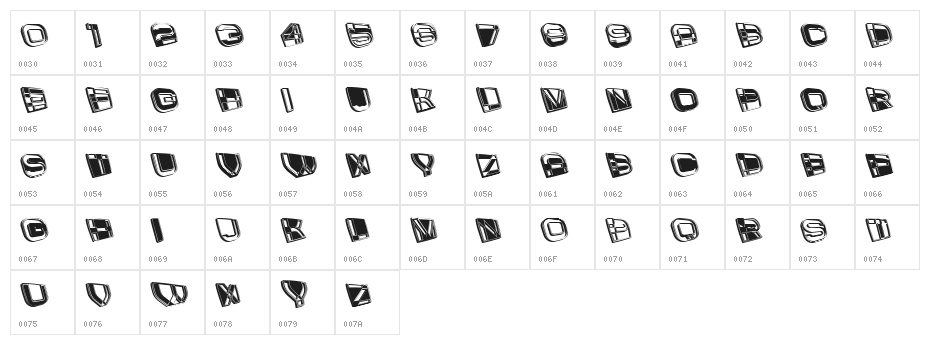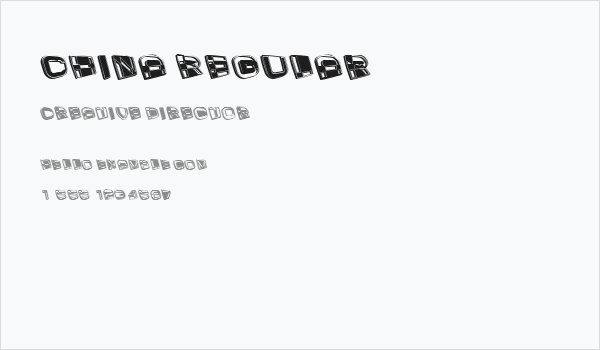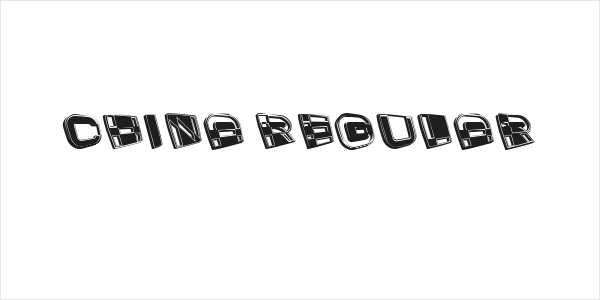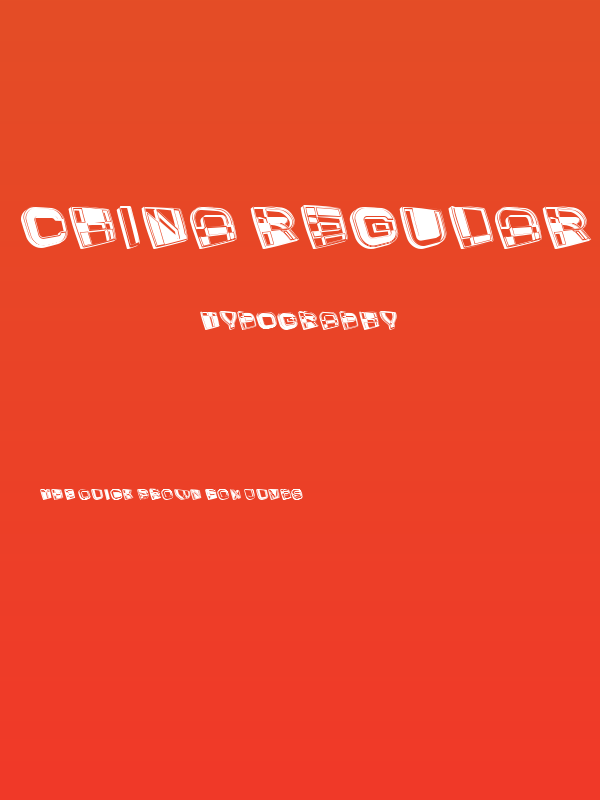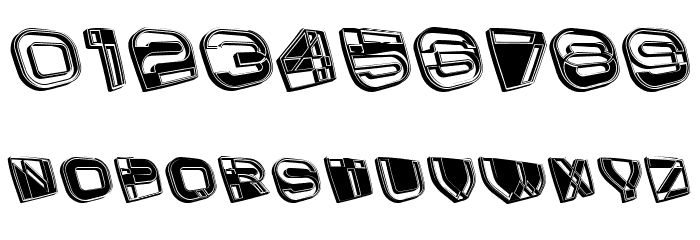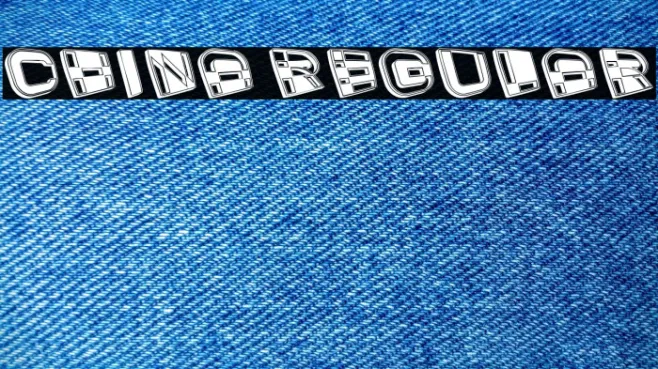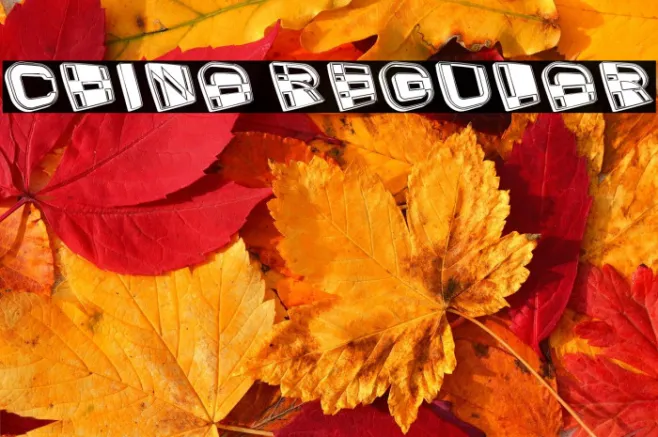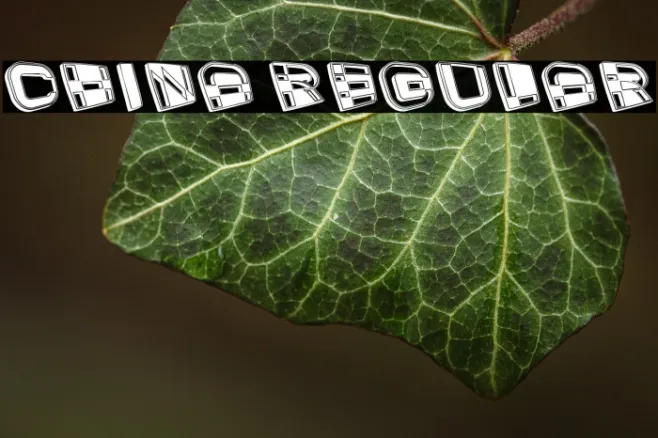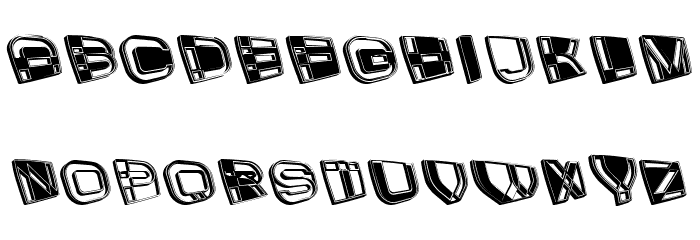
China Regular Font
China Regular Description
This font features a bold, geometric design with a three-dimensional effect, giving each character a distinct, layered appearance. The letters are constructed with thick strokes and sharp angles, creating a sense of depth and movement. The style is highly decorative, with a futuristic and industrial feel. The characters are tightly spaced, enhancing the compact and dynamic look. This font is ideal for making a strong visual impact, suitable for creative and modern design projects.
| Overall Style | Futuristic, Industrial |
| Proposed Projects | Ideal for posters, album covers, video game graphics, and branding that requires a modern and striking appearance. |